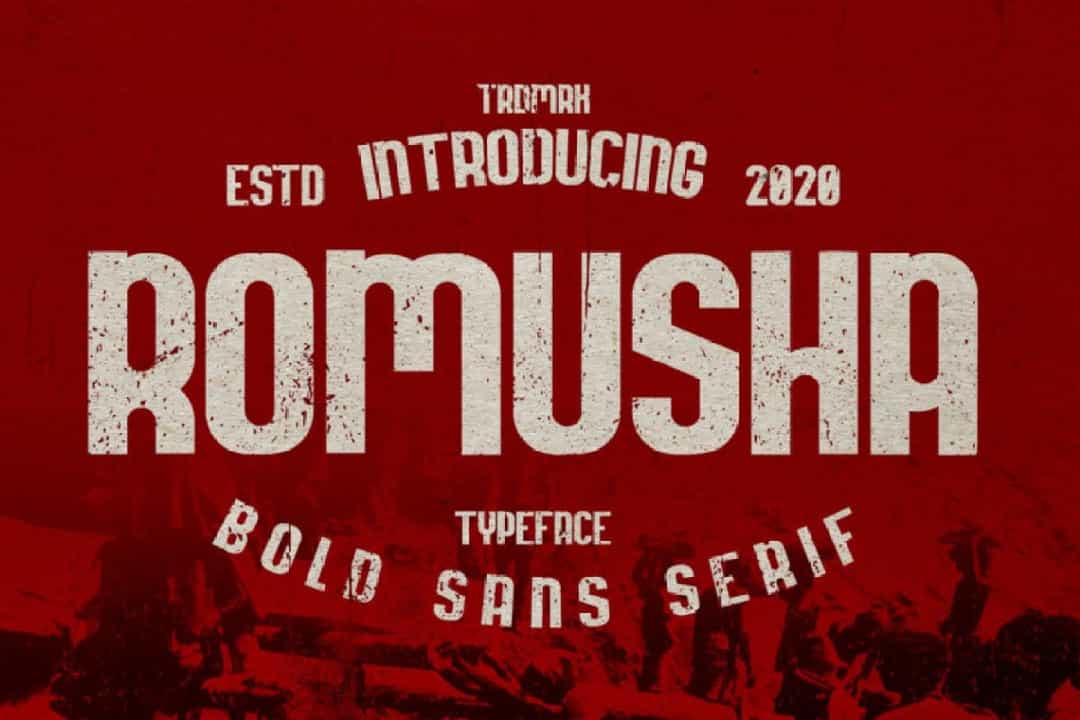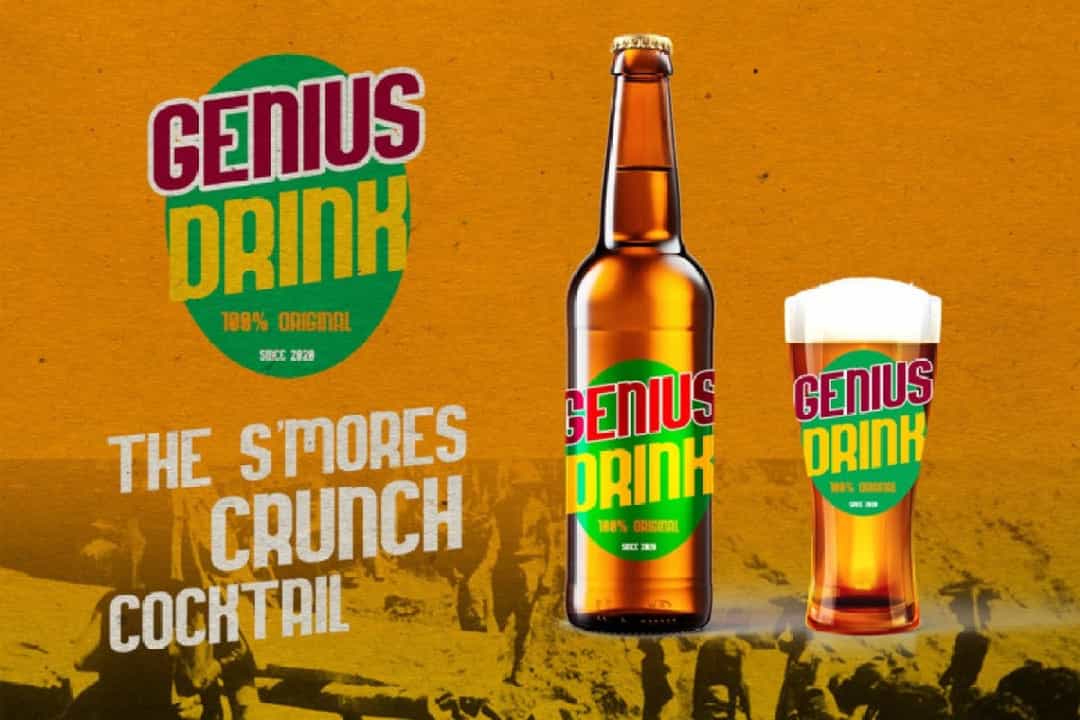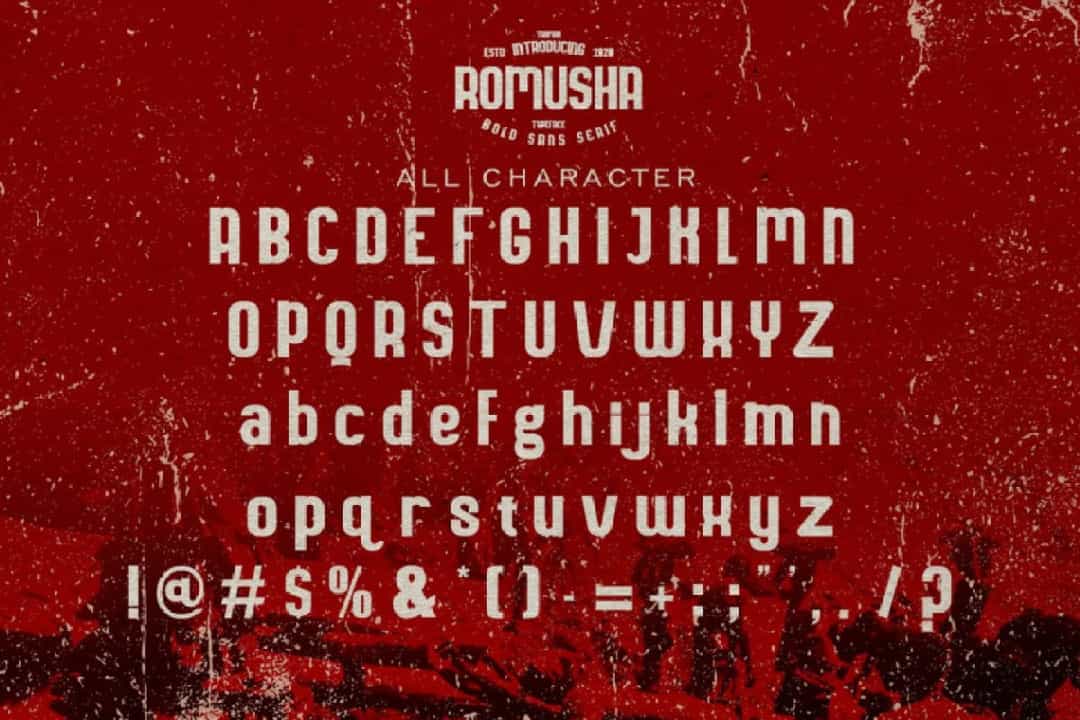
Romusha is a striking sans-serif Font. It has a striking character and an antique style. This typeface is ideal for design of products such as drinks, Barbershop name, Magazine, T-shirt, climbing starter pack, or to create your logo or typography designs, for example. This font is very inspiring and fun for your imaginative design.